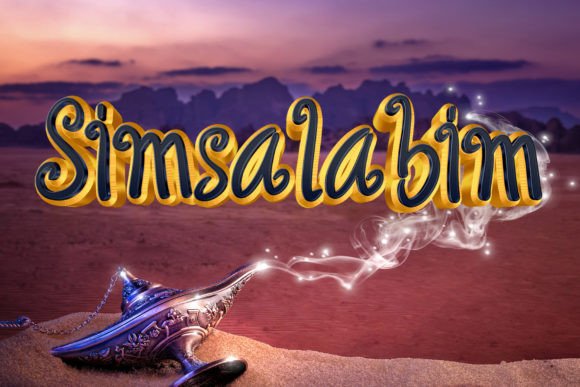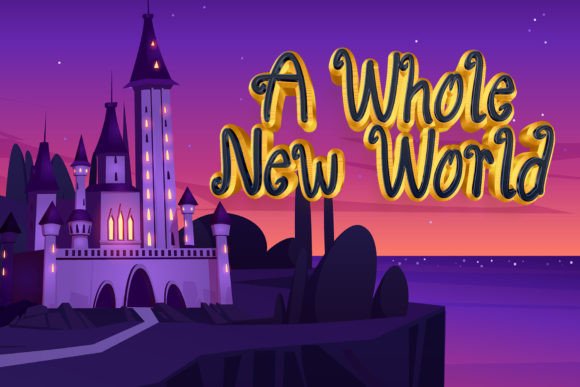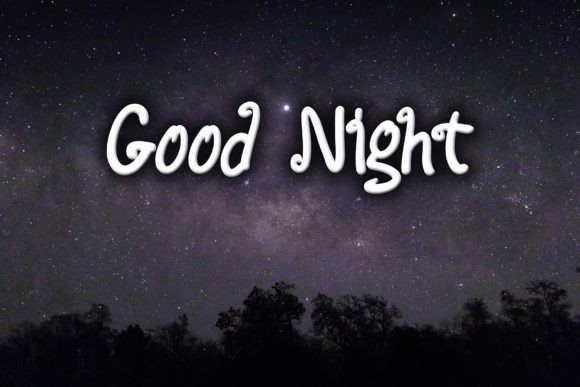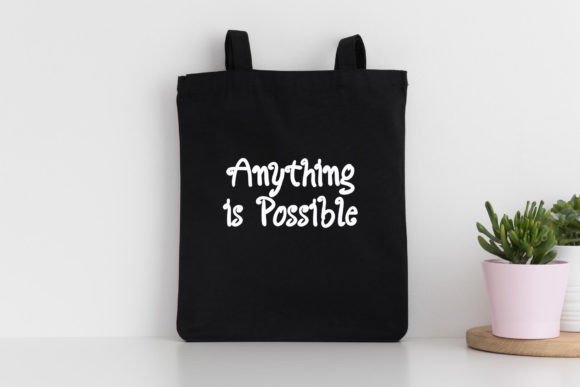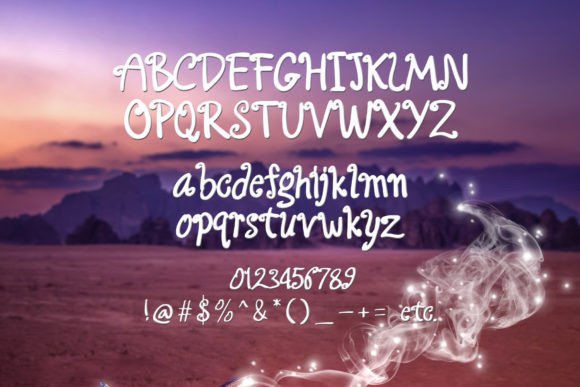
Introduction to Rohirrim Font
Rohirrim is a fun and quirky handwritten font.
Key Features of Rohirrim Font
Why Choose Rohirrim Font?
Rohirrim Font offers exceptional quality and versatility, making it a valuable addition to your design toolkit. Whether you’re creating for personal projects or commercial use, Rohirrim Font delivers professional results.